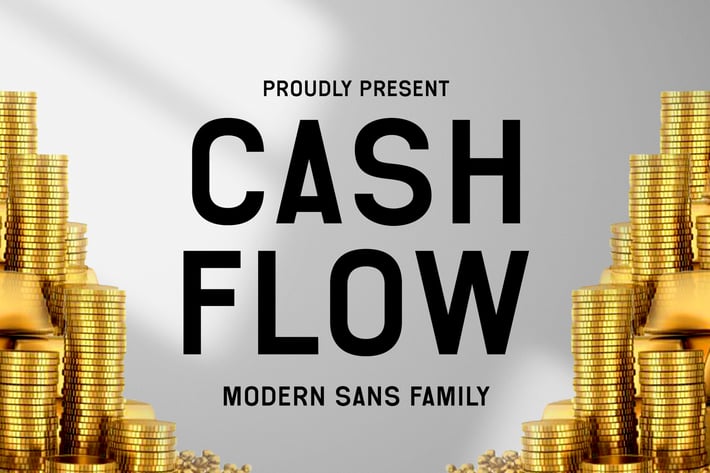
Cash Flow Business Family Font
Cash Flow Font family is elegant font. It can easily be matched to an incredibly large set of projects like logo, package, advertisement, magazine, , so add it to your creative ideas and notice how it makes them stand out!